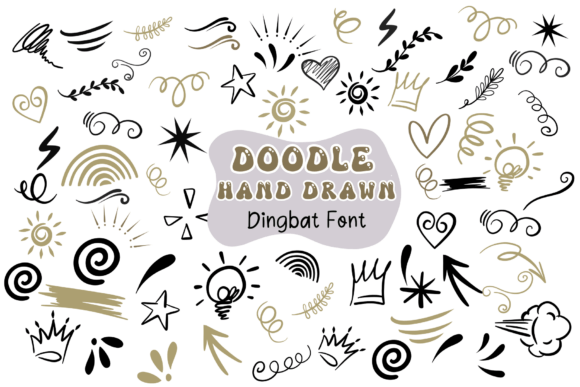
Unlock Your Creativity with Doodle Hand Drawn Font
Have you ever been stuck on a project, struggling to find the perfect design element to bring it to life? I’m sure we’ve all been there – staring blankly at our computer screens, desperately searching for inspiration. But what if I told you that there’s a font that can spark your creativity and add a touch of whimsy to any project? Enter the Doodle Hand Drawn Dingbat Font, a delightful collection of hand-drawn doodles and illustrations that will transport you to a world of endless possibility.
This charming font is a treasure trove of playful elements, including crowns, arrows, stars, hearts, swirls, and sunbursts, just waiting to be typed into your next project. Whether you’re a designer looking to add some personality to your designs, a journaler seeking to make your pages more visually appealing, or a parent wanting to make learning fun for your kids, the Doodle Hand Drawn Font is a valuable addition to your creative toolbox.
Doodle Hand Drawn Font Key Features
- Font Family: Doodle Hand Drawn Font is a unique, hand-drawn font designed for creative and artistic applications.
- Unique Characteristics: Doodle Hand Drawn Font features a distinctive, hand-drawn style with irregular lines, subtle imperfections, and a playful feel, making it perfect for adding a personal touch to designs.
- Character Set: Includes a comprehensive set of characters, including uppercase and lowercase letters, numbers, punctuation marks, and special characters, making it a versatile font for everyday use.
Doodle Hand Drawn Font Review
I recently had the chance to work with Doodle Hand Drawn Font, and I must say it’s a unique and charming addition to any design project. ✨ The hand-drawn feel gives it a personal touch that’s hard to replicate with more traditional fonts.
- Customizability: The font’s unique feel can be a great conversation starter, and the various styles and weights available make it easy to experiment with different looks.
- Whimsical feel: The font’s hand-drawn nature lends itself well to projects that require a more playful or artistic vibe.
However, there are some limitations to consider. ⚠️ The font’s irregularities can sometimes make it difficult to read, especially at smaller sizes or in complex text blocks. Additionally, the font’s hand-drawn feel may not be suitable for all types of projects or audiences.
Overall, I think Doodle Hand Drawn Font is a great choice for designers who want to add some personality to their work. While it may not be the best fit for every project, it’s definitely a fun and creative option to have in your toolkit.
The Doodle Hand Drawn Font is perfect for:
- Party decorations and signs
- Education and training materials